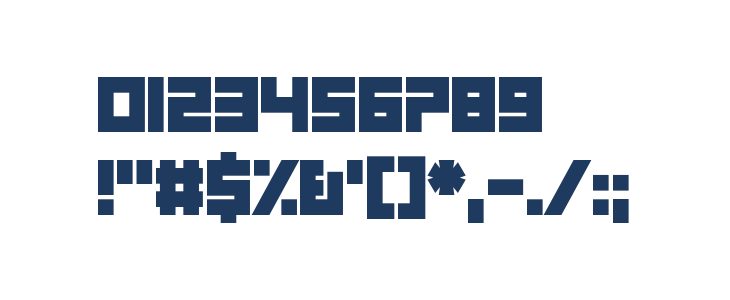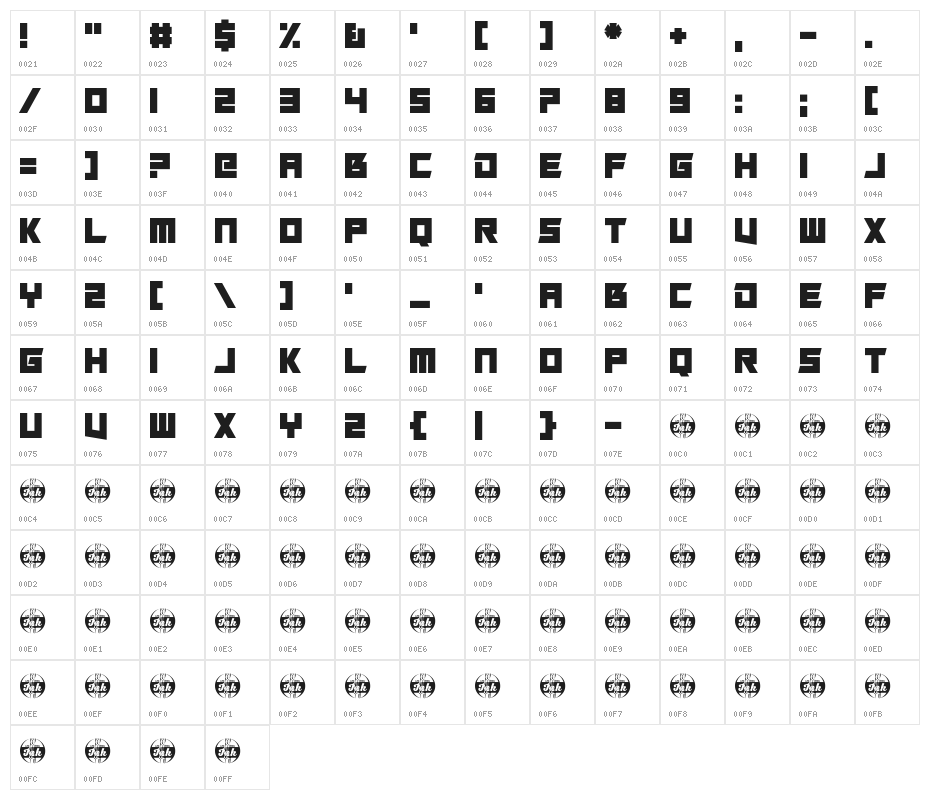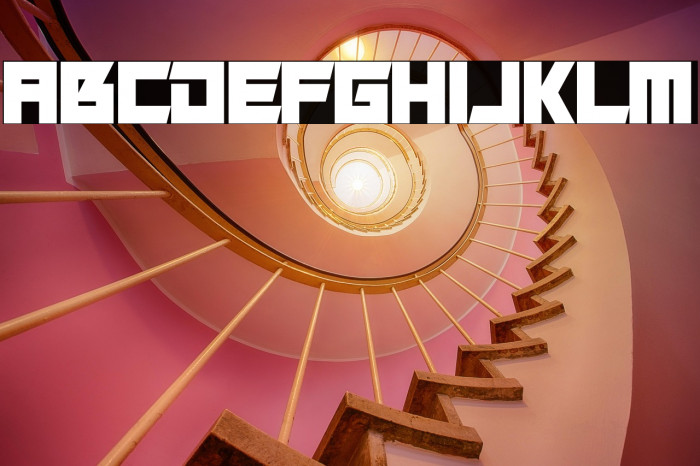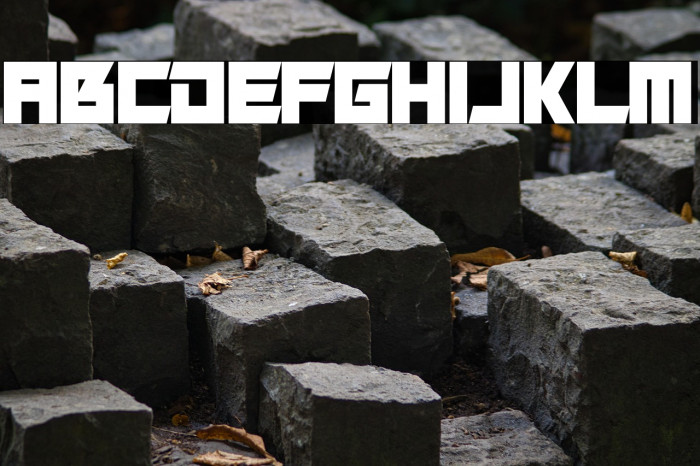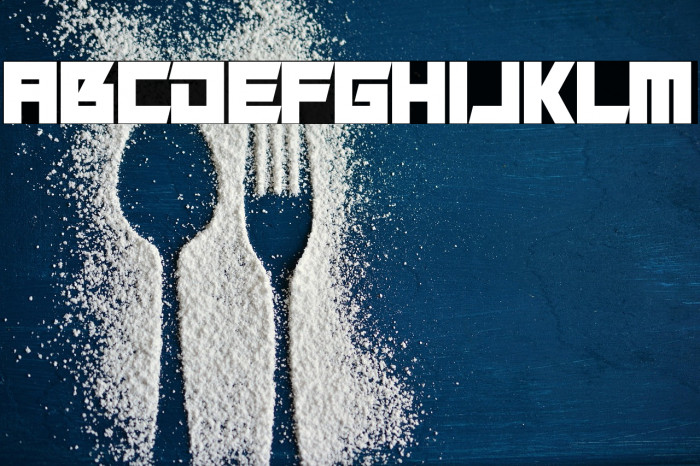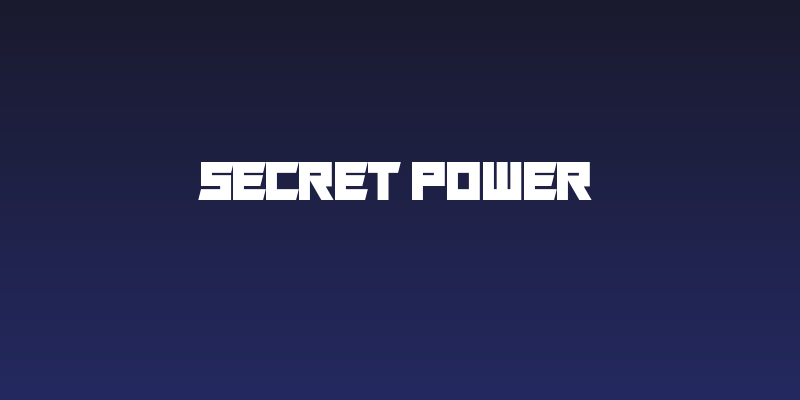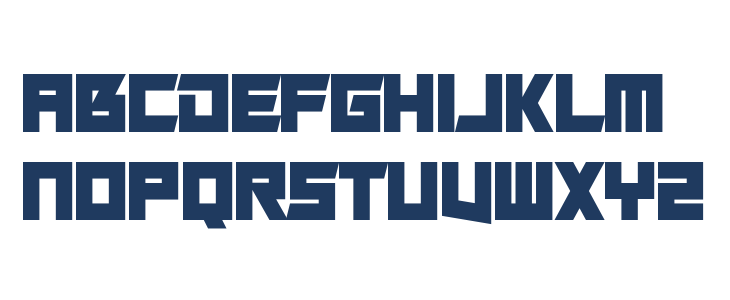
Secret Power Font
Secret Power Description
This font features a bold, geometric style with a strong, angular appearance. The characters are constructed with sharp edges and straight lines, giving it a futuristic and industrial feel. The uppercase letters are particularly striking, with a blocky design that emphasizes strength and power. The numbers and special characters maintain this robust aesthetic, ensuring consistency across all glyphs. The font's design is highly legible, making it suitable for impactful headlines and titles. Its unique style can add a modern and edgy touch to any project.
| Proposed Projects | Ideal for use in video game titles, movie posters, branding for tech companies, and any project requiring a modern, strong visual impact. |